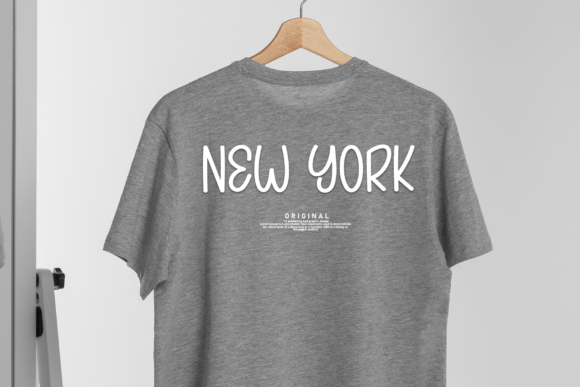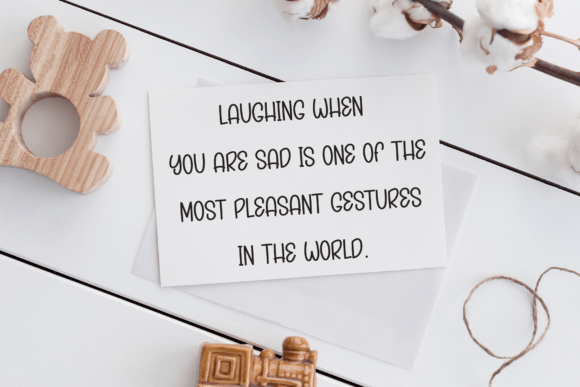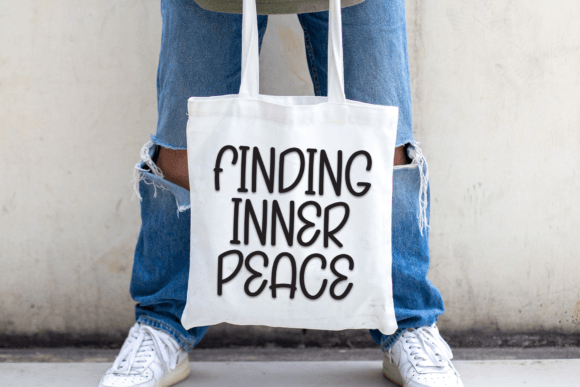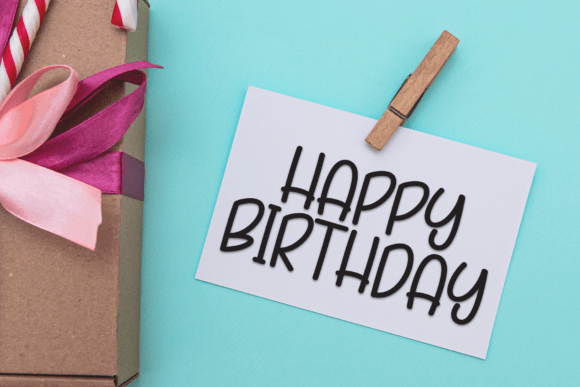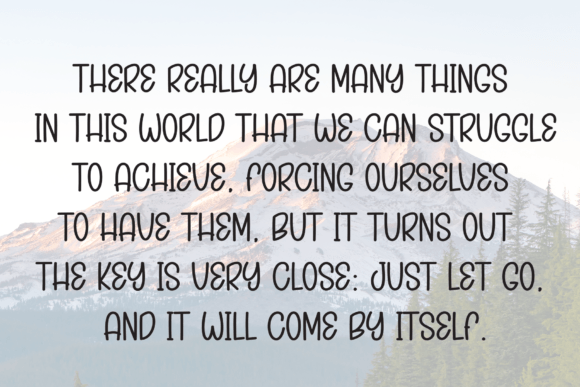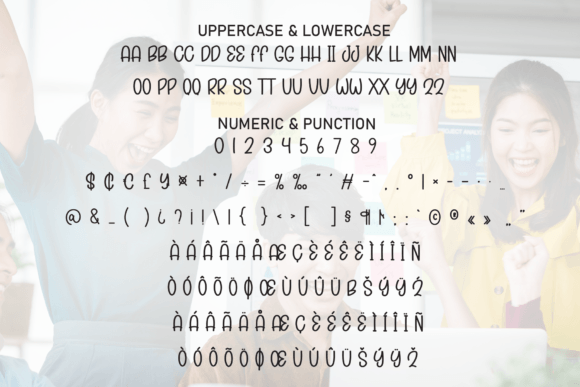
Introducing Happy Monday Font: The Perfect Casual Handwritten Style for Your Designs
Are you tired of using the same old fonts for your personal projects, social media posts, and invitations? Look no further than the Happy Monday Font, a casual handwritten font that captures a relaxed and friendly vibe with its natural, flowing strokes. This charming font is ideal for designers and crafters who want to add a touch of warmth and authenticity to their designs.
The Characteristics of Happy Monday Font
Happy Monday Font is a unique and stylish font that boasts a range of characteristics that make it perfect for a variety of design projects. Some of its key features include:
- Casual and Handwritten: Happy Monday Font has a casual, handwritten feel that makes it perfect for personal projects, social media posts, and invitations.
- Natural and Flowing Strokes: The font features natural, flowing strokes that give it a relaxed and friendly vibe.
- Effortless and Charming: Happy Monday Font brings an effortless, charming touch to any design, making it perfect for designers and crafters who want to add a touch of personality to their work.
- Easygoing Style: The font’s easygoing style adds warmth and authenticity to any design, making it perfect for projects that require a personal touch.
Why Use Happy Monday Font?
There are many reasons why designers and crafters should consider using Happy Monday Font in their projects. Here are just a few:
- Perfect for Personal Projects: Happy Monday Font is ideal for personal projects, such as scrapbooking, journaling, and crafting.
- Great for Social Media: The font’s casual, handwritten style makes it perfect for social media posts, including Instagram, Facebook, and Twitter.
- Ideal for Invitations: Happy Monday Font is a great choice for invitations, including birthday parties, baby showers, and weddings.
- Adds a Personal Touch: The font’s unique and stylish design adds a personal touch to any project, making it perfect for designers and crafters who want to stand out from the crowd.
How to Use Happy Monday Font
Using Happy Monday Font is easy and straightforward. Here are a few tips for incorporating the font into your designs:
- Pair with Other Fonts: Happy Monday Font pairs well with other fonts, including sans-serif and serif fonts.
- Use for Headings and Body Text: The font is suitable for both headings and body text, making it a versatile choice for a range of design projects.
- Experiment with Colors: Happy Monday Font looks great in a range of colors, including bright and bold colors, pastels, and neutral tones.
Tips and Tricks for Working with Happy Monday Font
Here are a few tips and tricks for working with Happy Monday Font:
- Keep it Simple: Don’t be afraid to keep things simple with Happy Monday Font. The font’s casual, handwritten style works best when it’s not over-complicated.
- Play with Size: Experiment with different font sizes to add visual interest to your designs.
- Add Texture: Consider adding texture to your designs to give them a more organic feel.
Happy Monday Font is a unique and stylish font that’s perfect for designers and crafters who want to add a touch of warmth and authenticity to their designs. With its casual, handwritten style and natural, flowing strokes, this font is ideal for personal projects, social media posts, and invitations. Whether you’re a seasoned designer or a crafty DIY enthusiast, Happy Monday Font is a great choice for anyone looking to add a personal touch to their work.